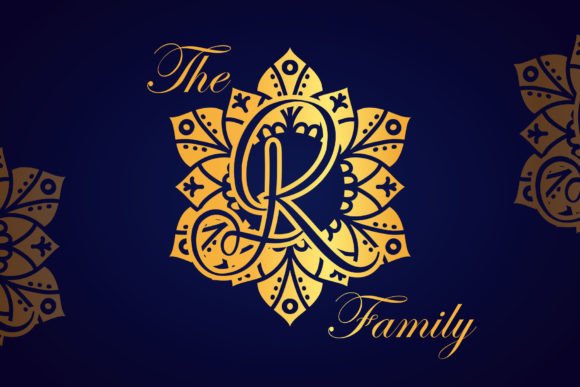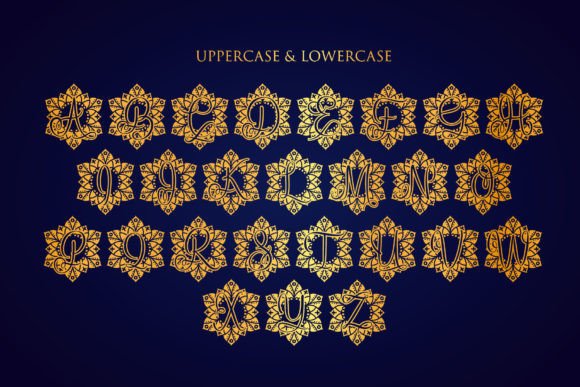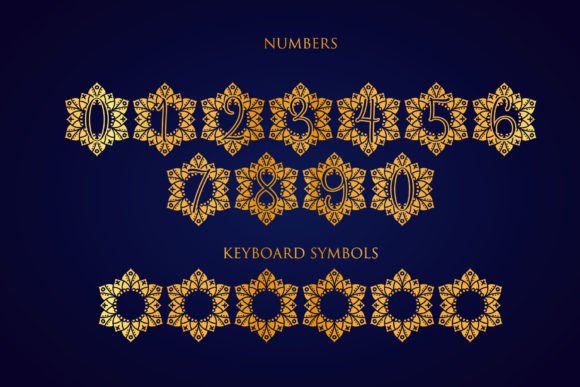
The Dignity Mandala Monogram Font: Elevate Your Designs with Elegance
I’ll never forget the time I was working on a project for a luxury brand, and I just couldn’t find the right font to match their high-end aesthetic. I scoured the internet, tried out dozens of fonts, but nothing seemed quite right. That was until I stumbled upon the Dignity Mandala Monogram Font. Its unique blend of elegance and sophistication instantly caught my eye, and I knew I had found the perfect fit. In this article, I’ll share my experience with this stunning font, and explore its features, uses, and alternatives.
So, what makes the Dignity Mandala Monogram Font so special? Here are a few things that I absolutely love:
- ✨ Elegant Design: The font’s mandala-inspired design gives it a truly unique and sophisticated look that’s perfect for high-end projects.
- ✅ Versatility: Whether you’re working on a logo, a poster, or a social media graphic, this font can adapt to any design style.
- 💫 Attention to Detail: The font’s intricate details and patterns make it a joy to work with, and the results are well worth the extra effort.
Of course, no font is perfect, and there are a few quirks to be aware of:
- 🤔 Legibility at Small Sizes: While the font looks stunning at larger sizes, it can become a bit tricky to read at smaller sizes. Be sure to test it out before committing to a specific size.
- ⚠️ Limited Use on Certain Backgrounds: The font’s intricate patterns can get lost on busy or dark backgrounds. Make sure to choose a background that complements the font’s design.
While the Dignity Mandala Monogram Font is truly unique, there are a few alternatives that you might want to consider:
- Mandala Luxe: This font shares a similar mandala-inspired design, but with a more luxurious and high-end feel. Use it for branding, packaging, or advertising projects.
- Elegant Script: If you’re looking for something a bit more traditional, this elegant script font is perfect for formal events, weddings, or high-end marketing materials.
- Floral Ornaments: This font features beautiful floral patterns and is ideal for projects that require a more whimsical, hand-drawn feel.
- Geometric Monogram: For a more modern take on monogram fonts, consider this geometric-inspired option. It’s perfect for tech, design, or innovative brands.
The Story Behind Dignity Mandala Monogram Font
The Dignity Mandala Monogram Font was created by a talented designer who drew inspiration from the intricate patterns and symmetry of mandala art. With a passion for elegant design and attention to detail, the designer aimed to create a font that would elevate any project to new heights. The result is a truly stunning font that’s perfect for designers, crafters, and creative hobbyists alike.
| What makes the Dignity Mandala Monogram Font unique? | The font’s mandala-inspired design and intricate patterns set it apart from other monogram fonts. |
| Is the Dignity Mandala Monogram Font suitable for body text? | While it’s technically possible, this font is better suited for headlines, titles, and short paragraphs due to its intricate design. |